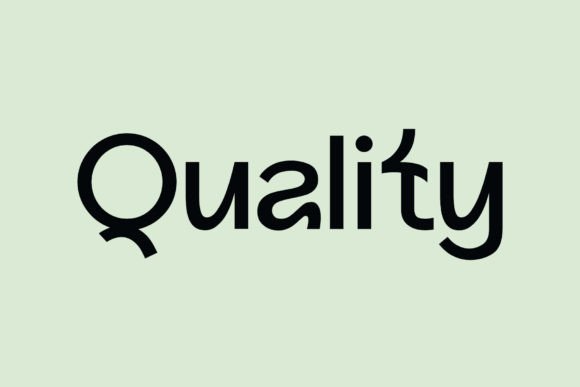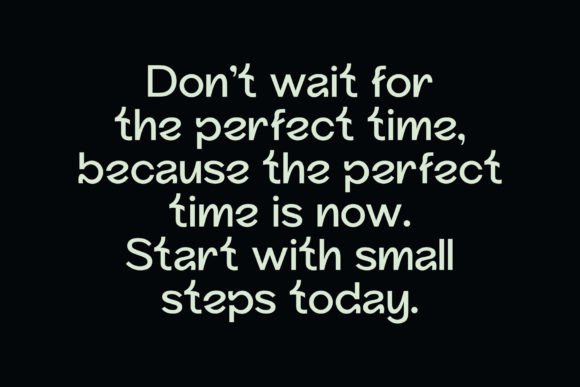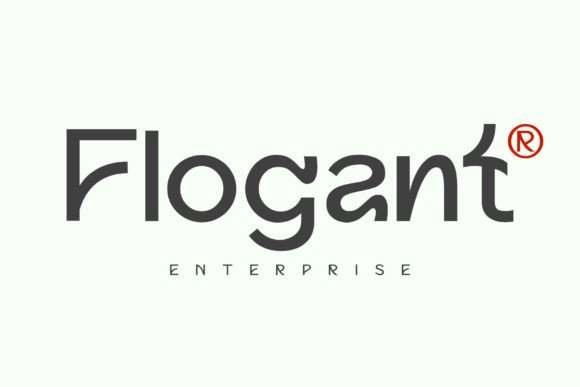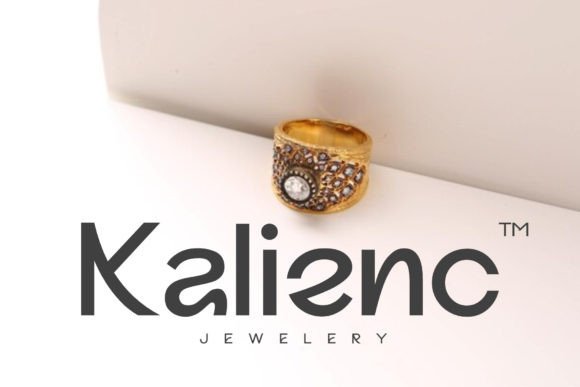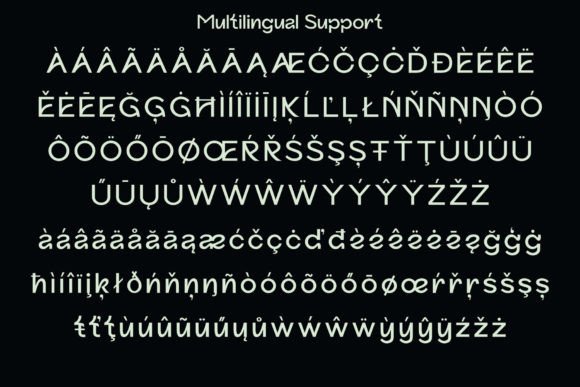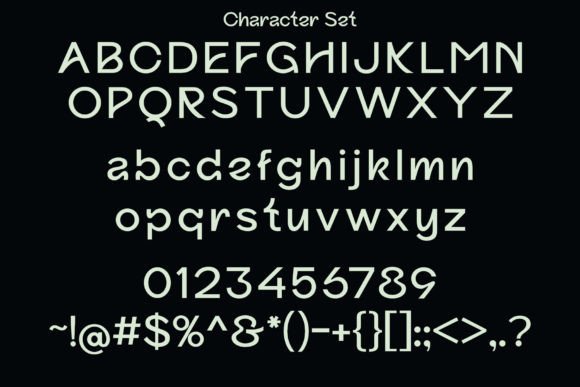
The Power of Gebuk Font: Elevate Your Designs with a Bold Statement
I’ll never forget the time I was working on a project for a trendy new coffee shop. My client wanted a bold, eye-catching logo that would stand out on their packaging and marketing materials. I scoured font after font, but nothing seemed quite right – until I stumbled upon Gebuk. This stunning display sans font has since become a staple in my design toolkit, and I’m excited to share its awesomeness with you! 😊
An Honest Review of Gebuk Font
- ✅ Clean lines and strong character: Gebuk’s minimalist letterforms exude a sense of modernity and sophistication.
- ✅ Perfect for attention-grabbing headlines: This font is designed to make a statement, and it delivers a striking visual impact.
- ✅ Versatile and adaptable: Gebuk works beautifully for posters, branding, packaging, and digital media.
- ✅ Readability and legibility: Despite its bold nature, Gebuk remains surprisingly readable, even at smaller sizes.
While Gebuk is an exceptional font, it’s not without its limitations. For instance:
- 🤔 Limited use for body text: Due to its bold nature, Gebuk is best suited for headlines and titles rather than extended paragraphs.
- 🤔 May not be ideal for very small sizes: While Gebuk remains readable at smaller sizes, it may lose some of its impact and clarity when used for very small text.
The Story Behind Gebuk Font
Gebuk was designed with the intention of creating a bold, statement-making font that would cut through the noise. Its designer drew inspiration from modern architecture and sleek, minimalist design. The result is a font that’s both powerful and elegant – perfect for designers looking to add a unique touch to their projects.
| Font Name | Gebuk Font |
| Author | Sealoung |
| What is Gebuk font best used for? | Gebuk is ideal for attention-grabbing headlines, logos, and titles in various design projects, such as posters, branding, packaging, and digital media. |
| Is Gebuk suitable for body text? | No, Gebuk is best suited for headlines and titles due to its bold nature. For body text, consider using a more readable font. |
| Is Gebuk available in different styles or weights? | Gebuk is a bold display font, but it may come in different variations or weights. Check with the font designer or foundry for more information. |